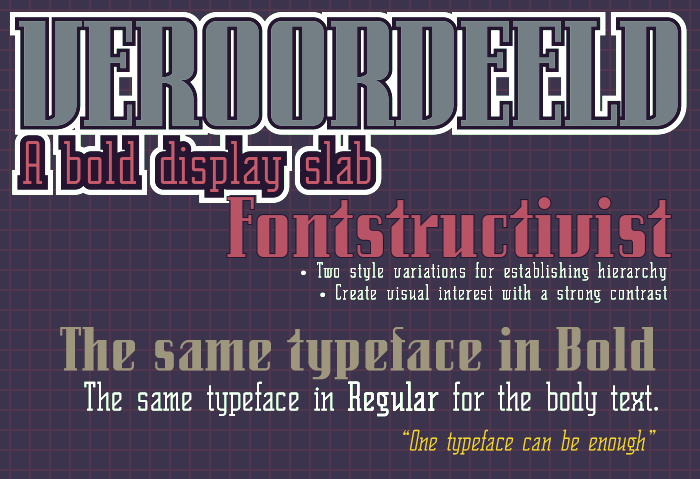
VEROORDEELD - A geometric slab serif
This is a small type family with two style variations, see links bellow!
• Display Bold contrasted display version ◄- U are here!
• Text Light weight monostroke version
Accidental Fontstruct remake of Senator by Emigre. Initially reconstructing the lettering seen on this book cover, later found out about it being an existing comericial font. I decided to completed it anyway. But for this reason it will not be available for downloading. Sorry...
Nice pair of fonts, the beginning of a cool family. I like especially the angular cuts on this one.
This bold/heavier version looks great. Lots of nice glyphs. My favorite is the lower case t, for it has a hint of depth. 10/10
Beautiful work, the contrast in this one in combination with the diagonal cuts works particularly well.
What are the rules on "fontstructing" an already existing font? This is extremely close to a certain Emigre font - I don't particularly mind that, just asking from a legal perspective.